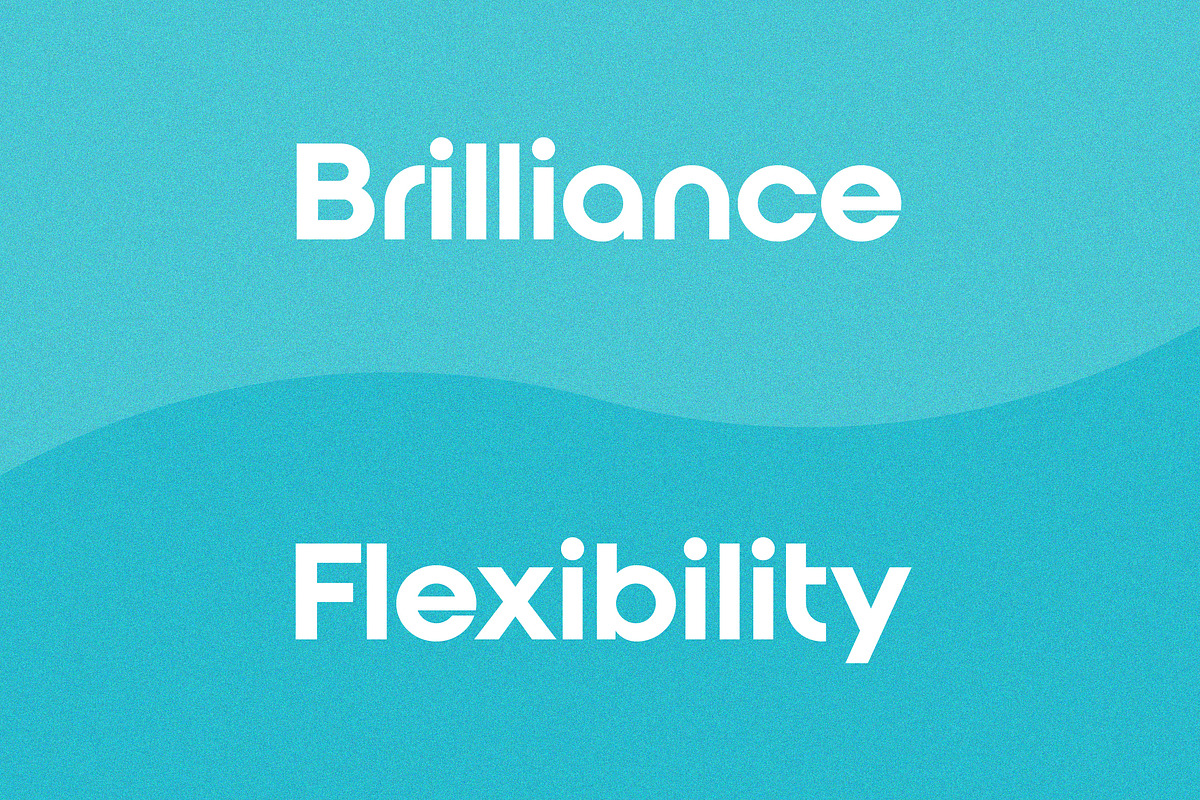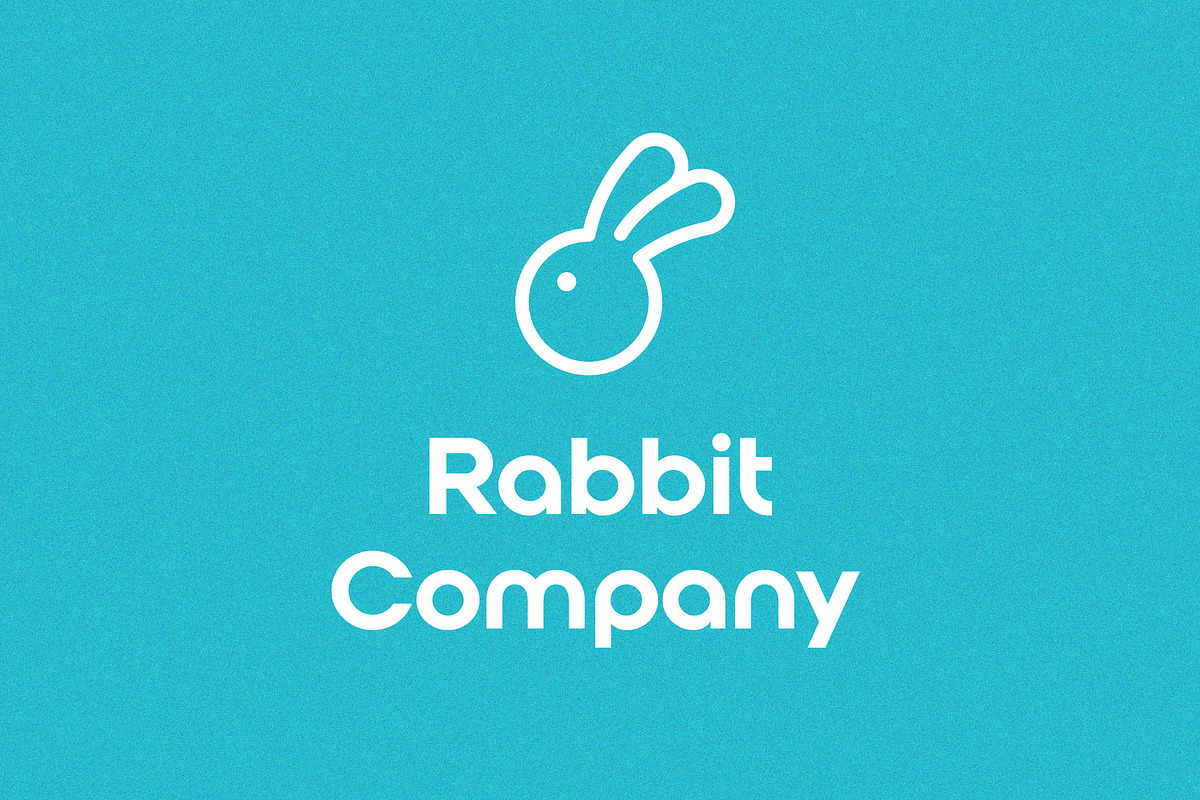
Qualy Font
Qualy is a special font for your logo & branding. Every character is designed for a good logo, so not suitable for a long text. Perfect for vintage illustrations, logos, brand design, packaging, logo titles, photography, shirt designs, and many others. Character Set: A-Z, 0-9, 54 Punctuation, 199 Latin diacritics, 94 Cyrillic characters.